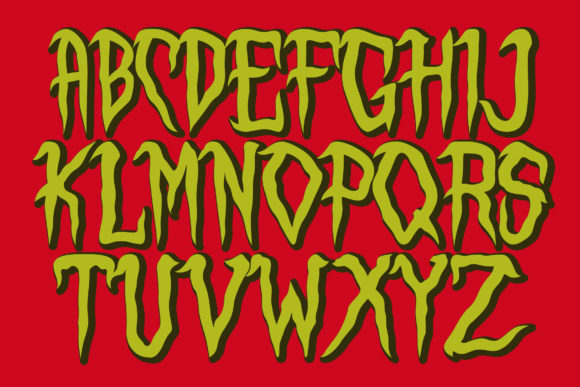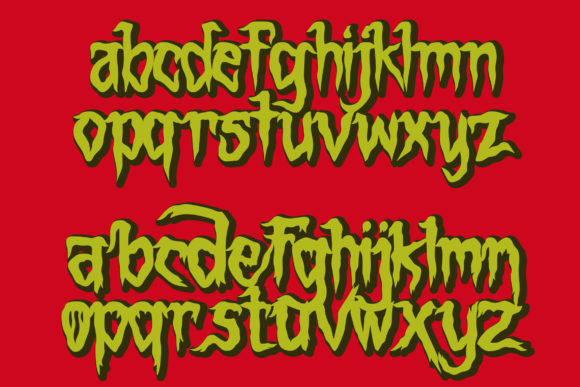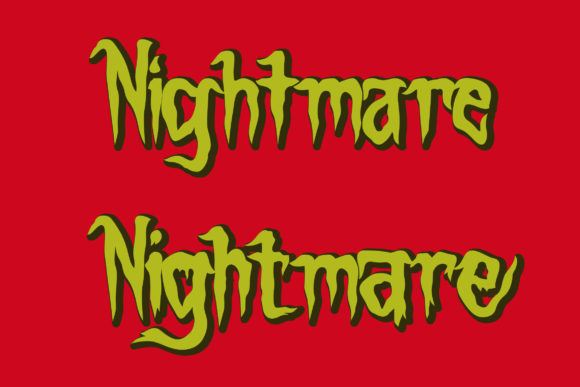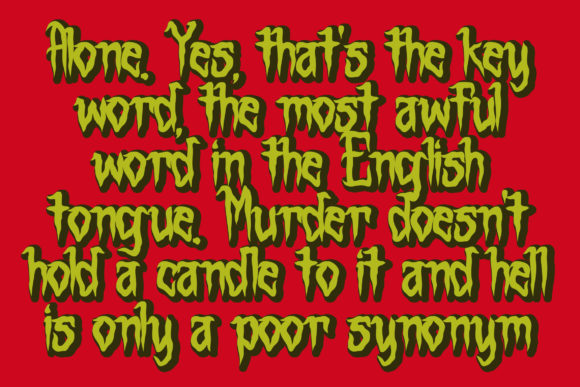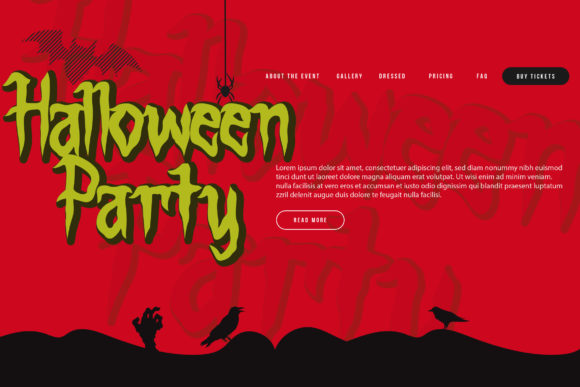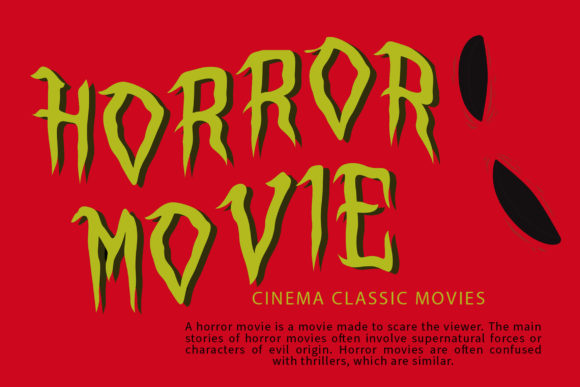
Unleash the Spook: Elevate Your Halloween Designs with Counter Attack Font
As the witching hour approaches, designers and crafters are on the lookout for the perfect typography to add a spine-tingling touch to their Halloween creations. Look no further than the Counter Attack Font, a horror display font that’s sure to send shivers down the spines of your audience. With its dramatic and slightly spooky vibe, this font is the ideal choice for conjuring up eerie elegance in your Halloween designs.
The Essence of Counter Attack Font
Counter Attack Font is a meticulously crafted typeface that embodies the essence of horror and suspense. Its bold, eye-catching letters seem to leap off the page, exuding a sense of foreboding and unease. The font’s dramatic flair makes it perfect for creating eye-catching titles, headings, and phrases that demand attention. Whether you’re designing invitations, posters, or social media graphics, Counter Attack Font is sure to make your Halloween creations stand out from the crowd.
Key Features of Counter Attack Font
- Dramatic and Spooky Design: The font’s unique design is characterized by bold lines, sharp edges, and an overall sense of eeriness.
- Horror Display Font: Perfect for creating attention-grabbing headlines and titles that evoke a sense of fear and unease.
- Halloween-themed: Specifically designed with Halloween in mind, this font is ideal for seasonal designs, from invitations to decorations.
- Easily Readable: Despite its bold and dramatic design, the font remains easily readable, making it perfect for use in a variety of design applications.
Design Ideas with Counter Attack Font
Counter Attack Font is incredibly versatile and can be used in a wide range of design applications. Here are a few ideas to get you started:
- Halloween Invitations: Create spooky and inviting Halloween party invitations that set the tone for a howling good time.
- Poster Design: Design eye-catching posters for horror movies, haunted houses, or Halloween events.
- Social Media Graphics: Add a touch of Halloween horror to your social media graphics, from Facebook posts to Instagram stories.
- Crafting Projects: Use Counter Attack Font to add a spooky touch to your crafting projects, from DIY decorations to handmade cards.
Tips for Using Counter Attack Font
To get the most out of Counter Attack Font, here are a few tips to keep in mind:
- Use it Sparingly: While Counter Attack Font is bold and eye-catching, it can be overwhelming if overused. Use it sparingly to create emphasis and add visual interest.
- Pair it with Other Fonts: Combine Counter Attack Font with other fonts to create a unique and visually appealing design.
- Experiment with Colors: Don’t be afraid to experiment with different colors and textures to add depth and interest to your design.